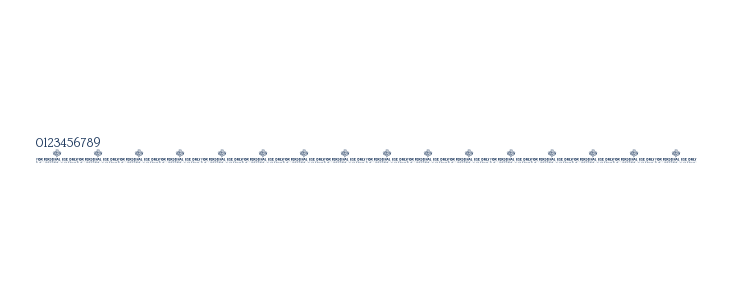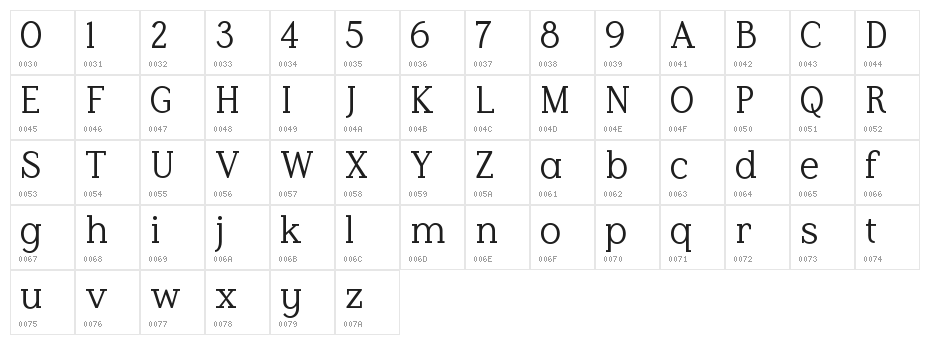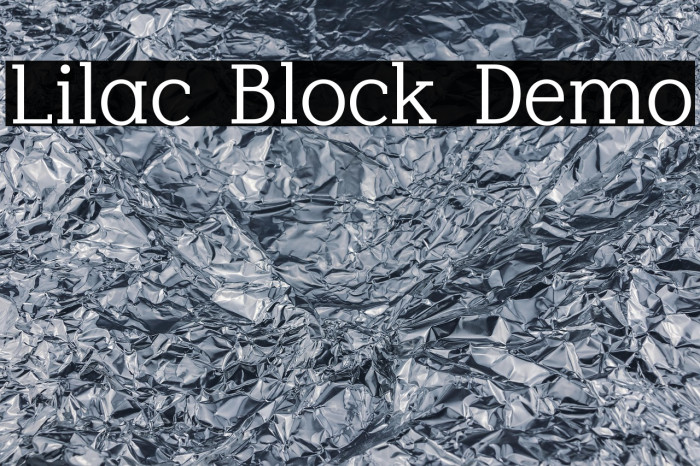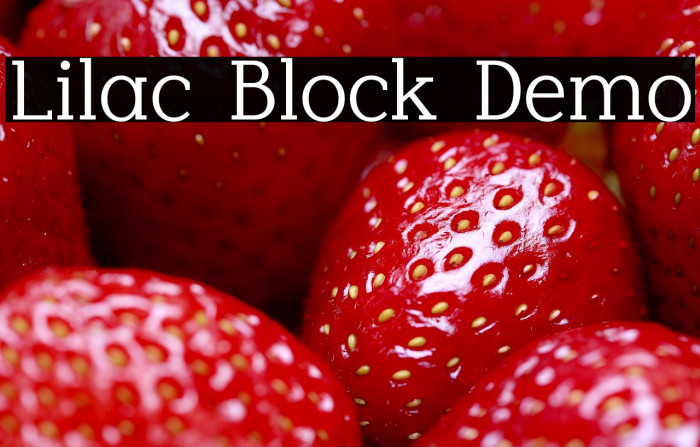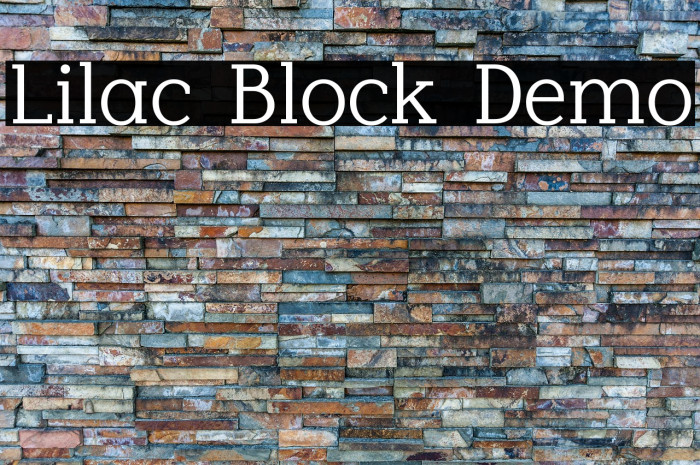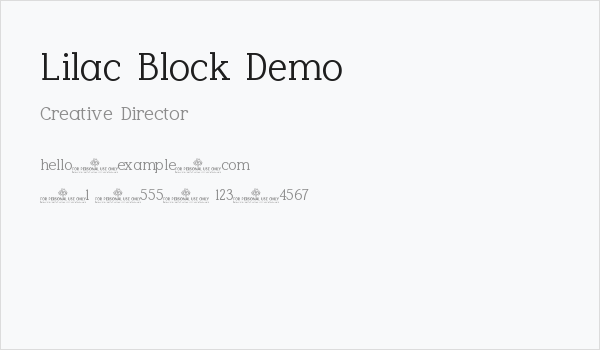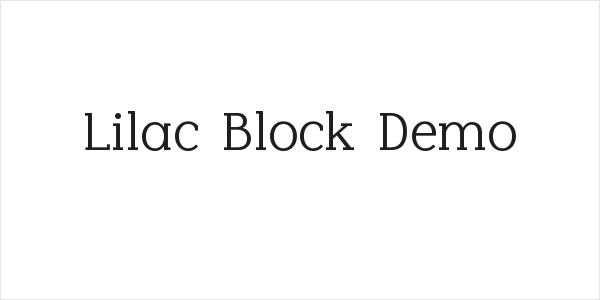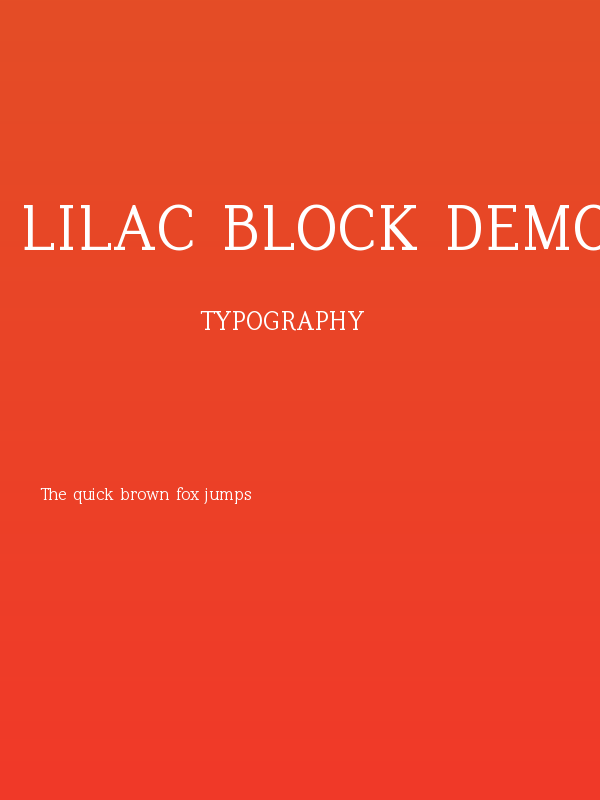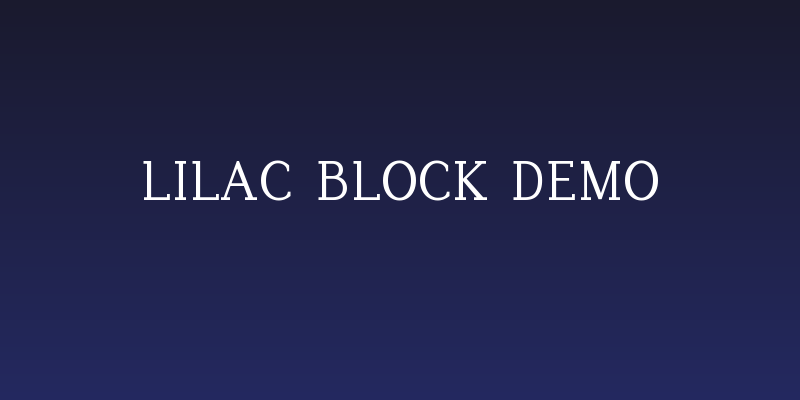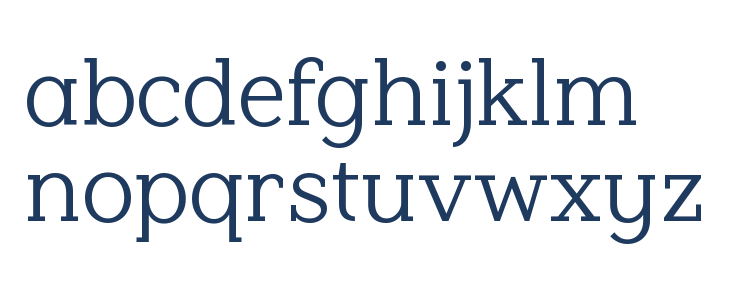
Lilac Block Demo Font
Lilac Block Demo Description
This typeface features a classic serif design with elegant and refined strokes. The characters exhibit a balanced proportion, with slightly elongated serifs that add a touch of sophistication. The uppercase letters are bold and commanding, while the lowercase letters maintain a smooth and consistent flow. The numerals are clear and legible, making them suitable for various applications. The overall appearance is timeless, making it versatile for both modern and traditional projects. The spacing between characters is well-calibrated, ensuring readability and aesthetic appeal.
| Proposed Projects | Ideal for editorial design, book covers, formal invitations, and branding projects that require a touch of elegance. |